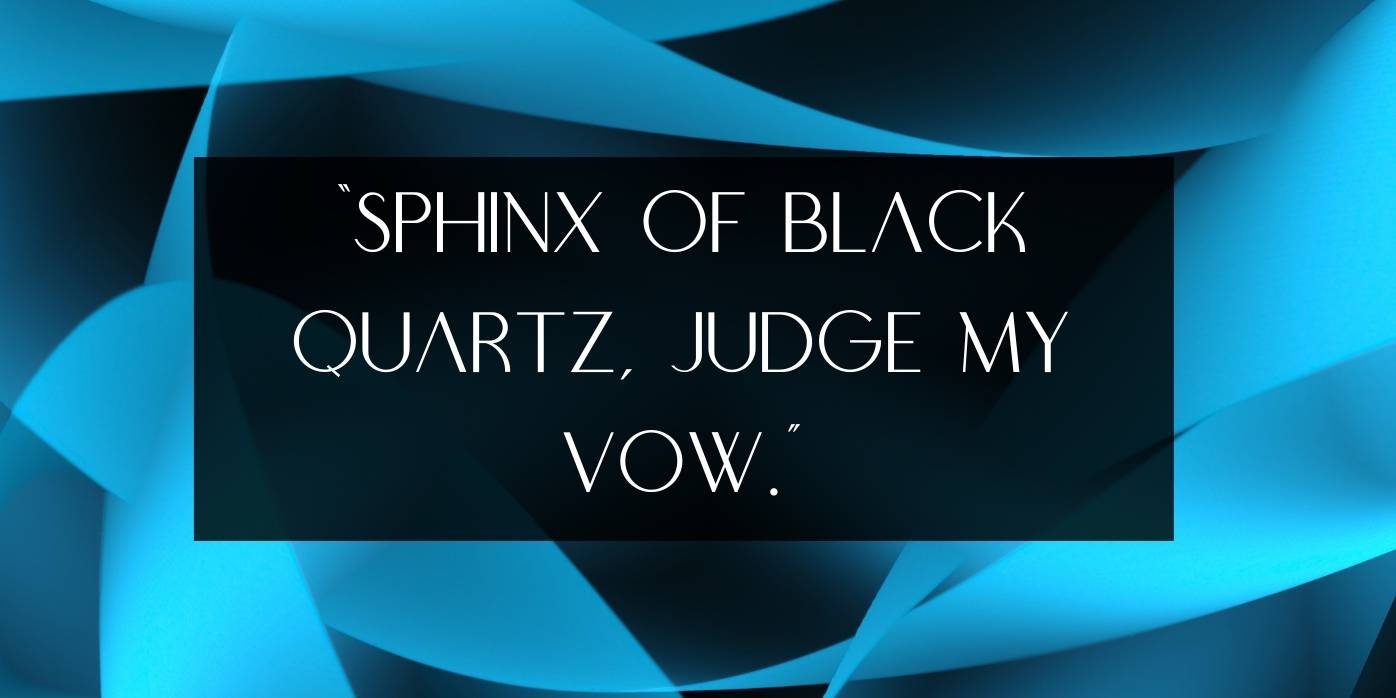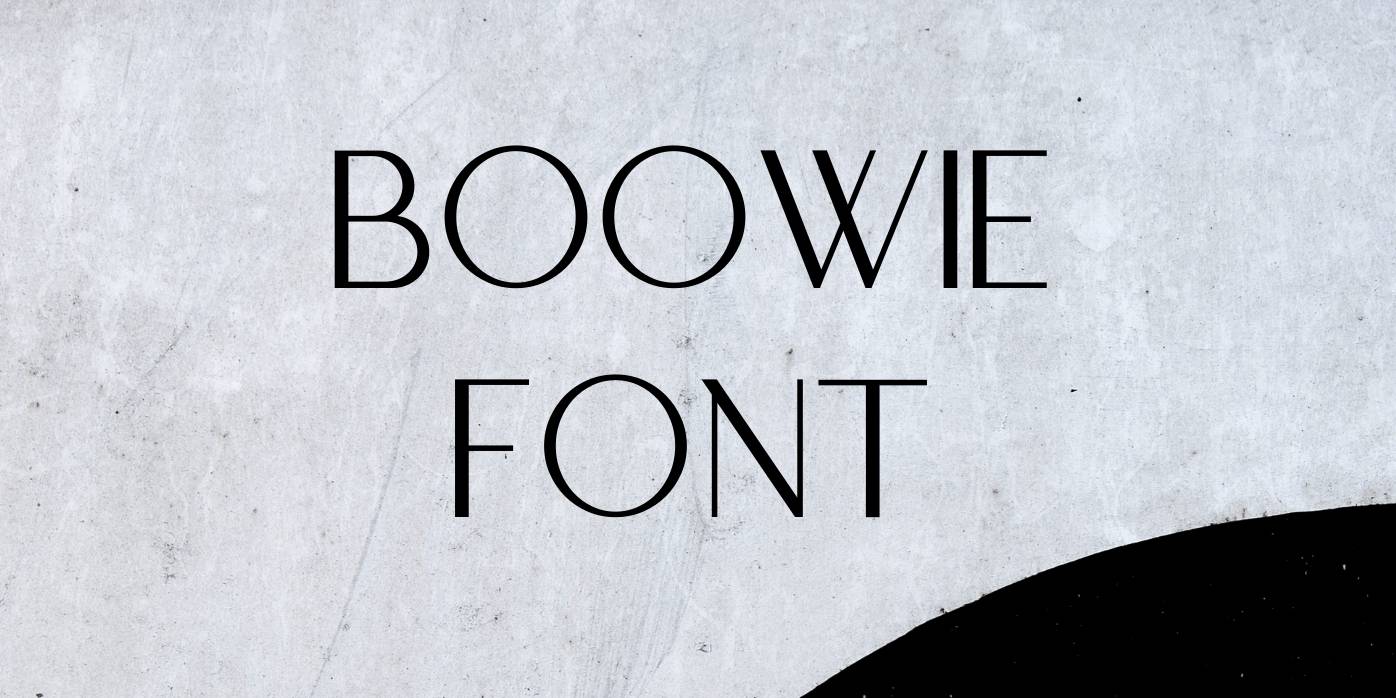
Boowie Font
Boowie font is a Sans Serif typeface that was developed and published by Typeline Studio. The typeface includes six different styles and weights, making it a great choice for both headlines and body text. Boowie font is perfect for any project that requires a clean, modern look. Its premium version also supports the Latin Extended-A character set, which means it can be used for a wide range of international projects.
Its large X-height and wide spacing make it highly legible, even at smaller sizes. This typeface is best for Canva and MS Word. This typeface has another similar century gothic font that works in the same manner. This stylish font is available in both TTF and OTF formats.